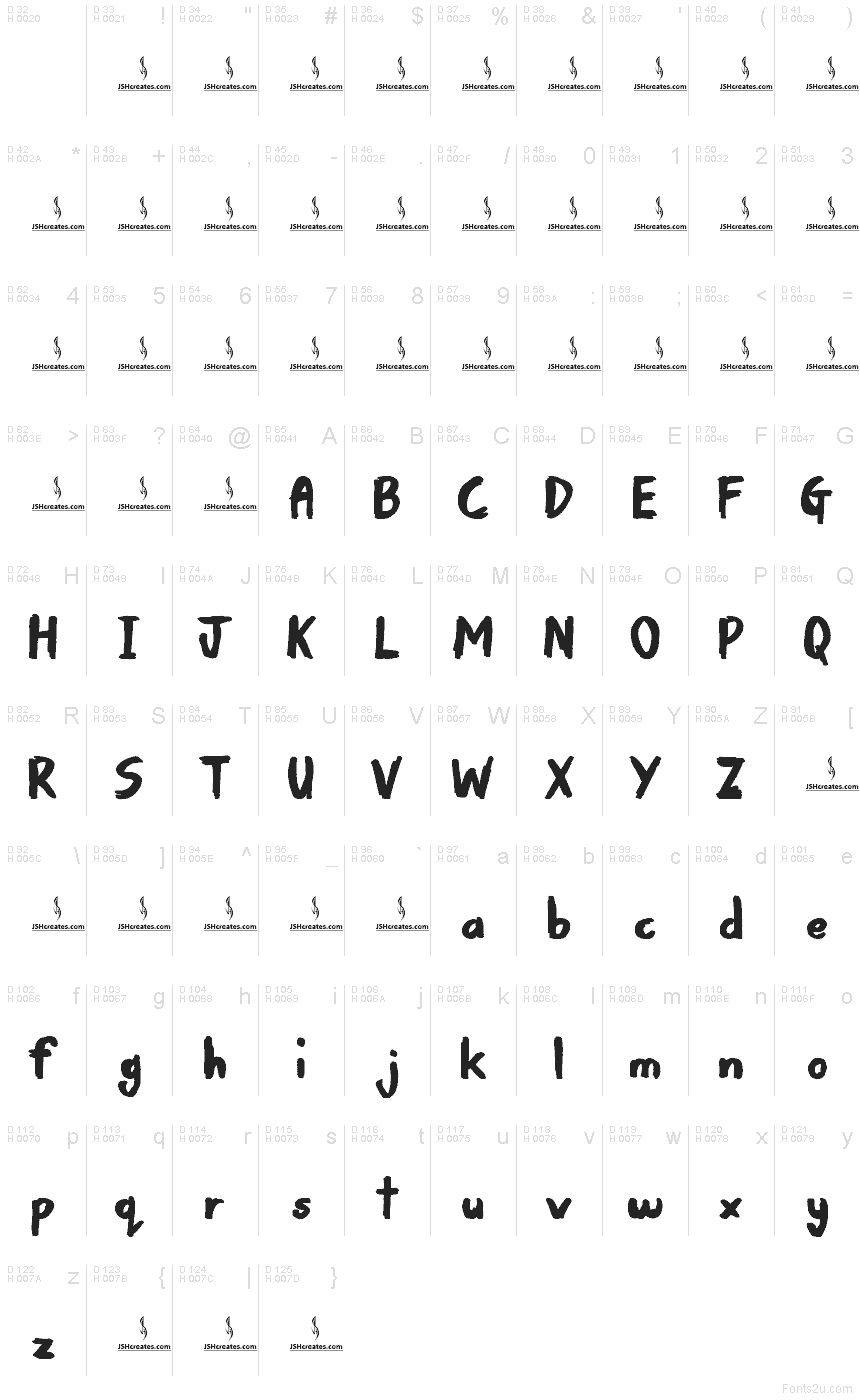
Painting Class
Painting Class font is an artistic free brush font by JSH creates. The typeface carries friendly and energetic casual vibes that can evoke creativity, friendly communication, or even a sense of adventure! The characters are wide and thick while the entire typeface features diagonal alignment which adds playfulness to its look.
Use it in quotes, book covers, social media artwork and posts, posters, headings within magazine pages, packaging designs like chocolates or juice boxes. Additionally, the font suits branding projects like logos for bands or beauty shops.